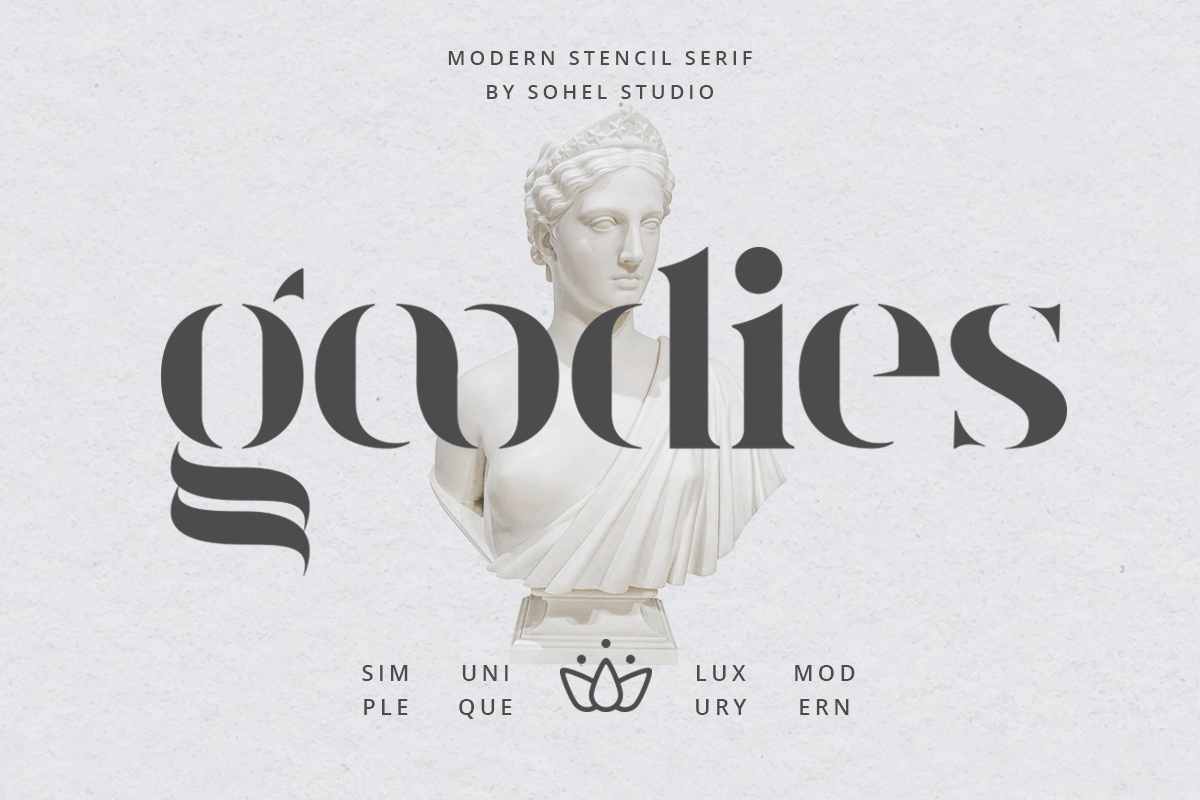
Goodies - Elegant Logotype Font
Say hi to “Goodies” Modern Stencil Serif . That has a unique style & luxurious look. This typeface is perfect for an elegant & luxury logo , classy editorial design, women's magazine, fashion brand , cosmetic brand, fashion promotion , modern advertising design, invitation card, art quote, home decoration , book/cover titles, special events, and much more.
Goodies Features:
- 2 Weights font (Regular,Italic)
- Uppercase And Lowercase